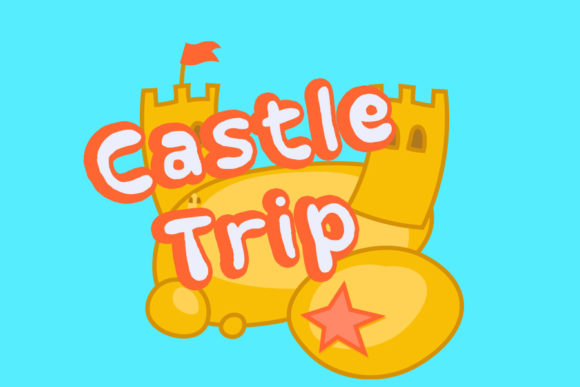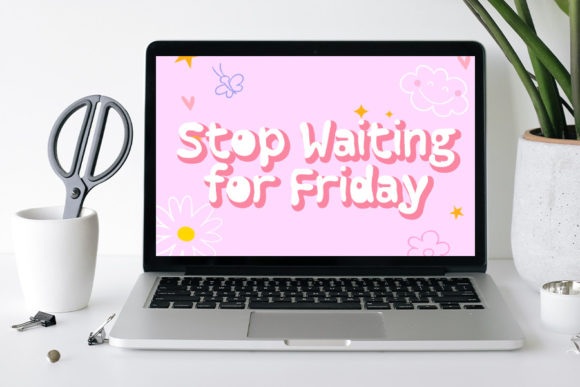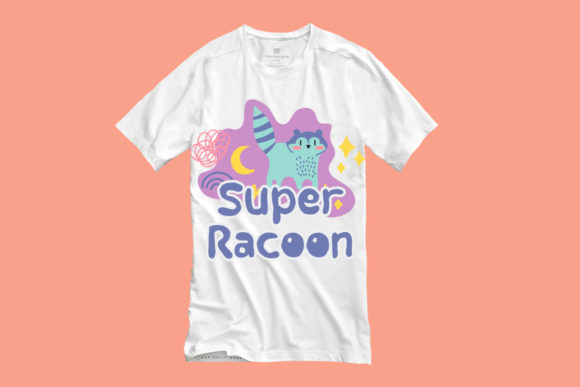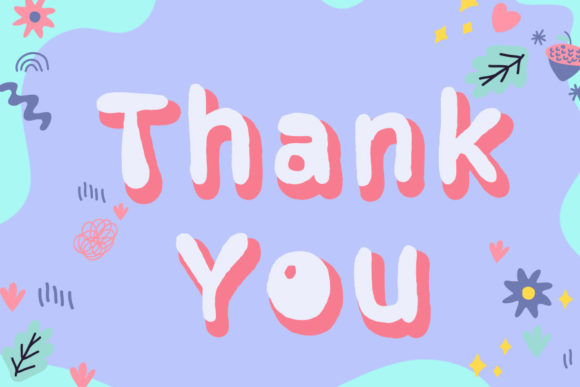
Introduction to Moore Amoore Font Font
Fonts play a crucial role in design, and the Moore Amoore Font font is a typeface that brings both character and versatility to any project. Whether you’re working on a branding project, a website, or a print design, the Moore Amoore Font font offers a unique style that can elevate your work.
Moore Amoore is a cool, incredibly cute and bubbly display font.
Add to each of your party invitation, swimming gathering or pretty much any design that requires a touch of youth and joy .
Key Features of Moore Amoore Font Font
Why Choose Moore Amoore Font Font?
The Moore Amoore Font font is more than just a typeface – it’s a design tool that helps you communicate your message with style and clarity. Its unique character set and versatile design make it suitable for a wide range of applications, from elegant invitations to bold headlines.
With its carefully crafted letterforms and balanced proportions, the Moore Amoore Font font ensures readability and visual appeal across all mediums.
What makes Moore Amoore Font font special?
The Moore Amoore Font font stands out with its unique design, exceptional readability, and versatility across various design applications.